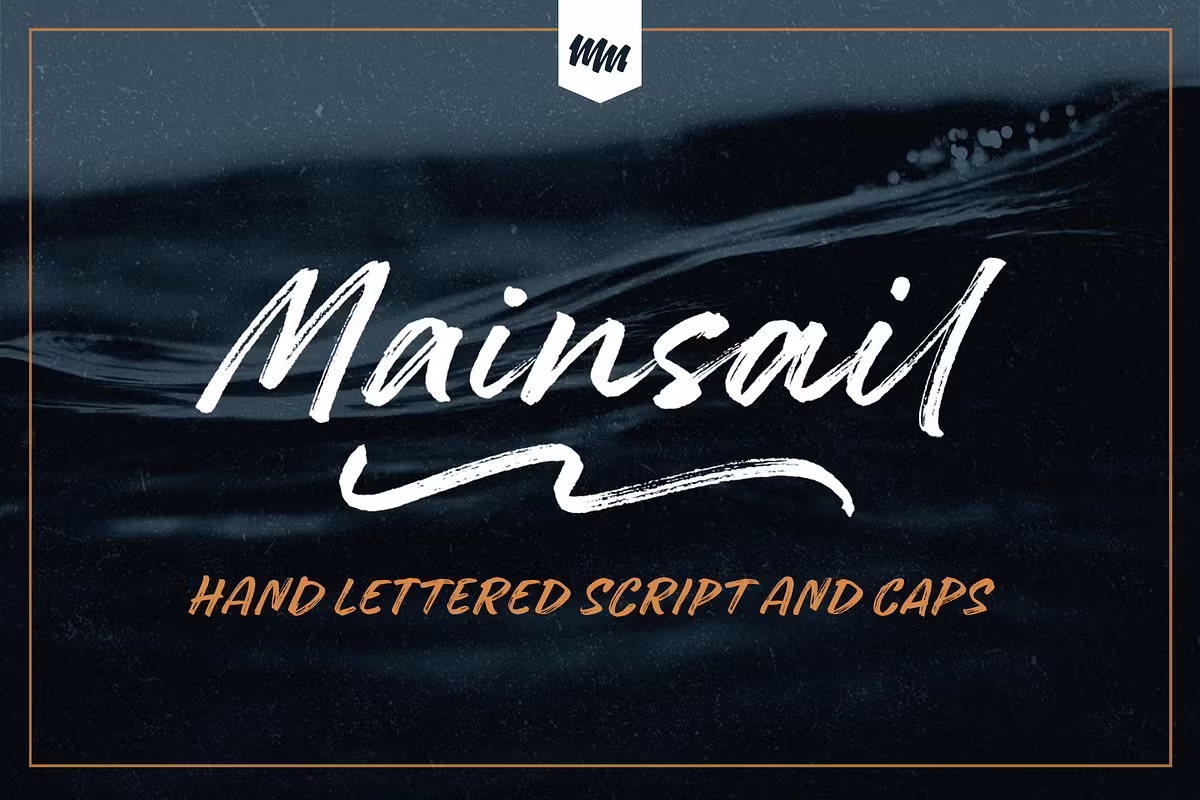
Mainsail Font Free Download is a dynamic and expressive script typeface designed by Mika Melvas. Released in February 2020, this font features fluid, slightly textured strokes that emulate natural handwriting, adding an artistic and personal touch to your designs. Ideal for invitations, greeting cards, branding, and creative projects requiring a personal touch, Mainsail brings a sense of authenticity and elegance to your typography.
Experience the charm of Mainsail Font Free Download in your personal projects. Its handcrafted appearance and fluid strokes will enhance your designs, providing a unique and engaging visual appeal that captures the essence of handwritten artistry.